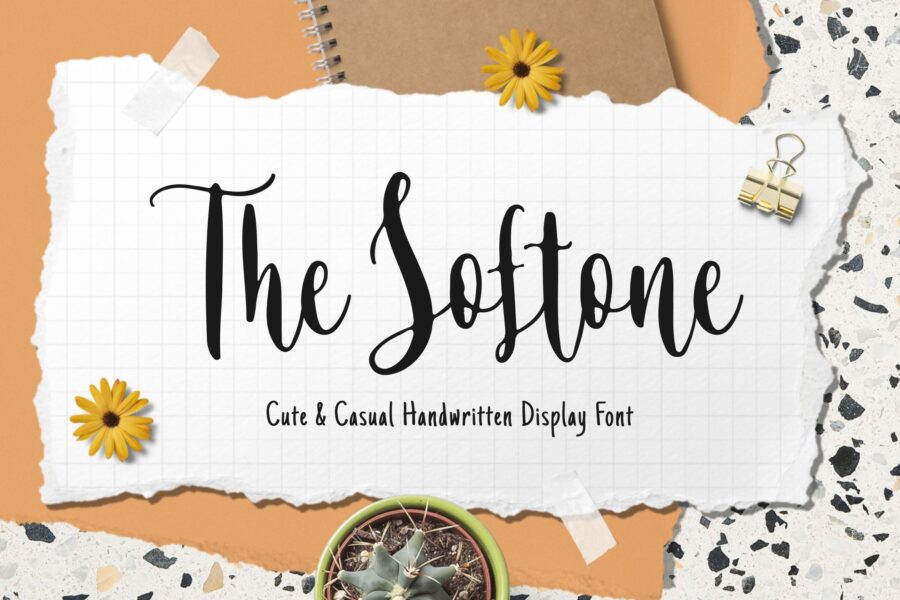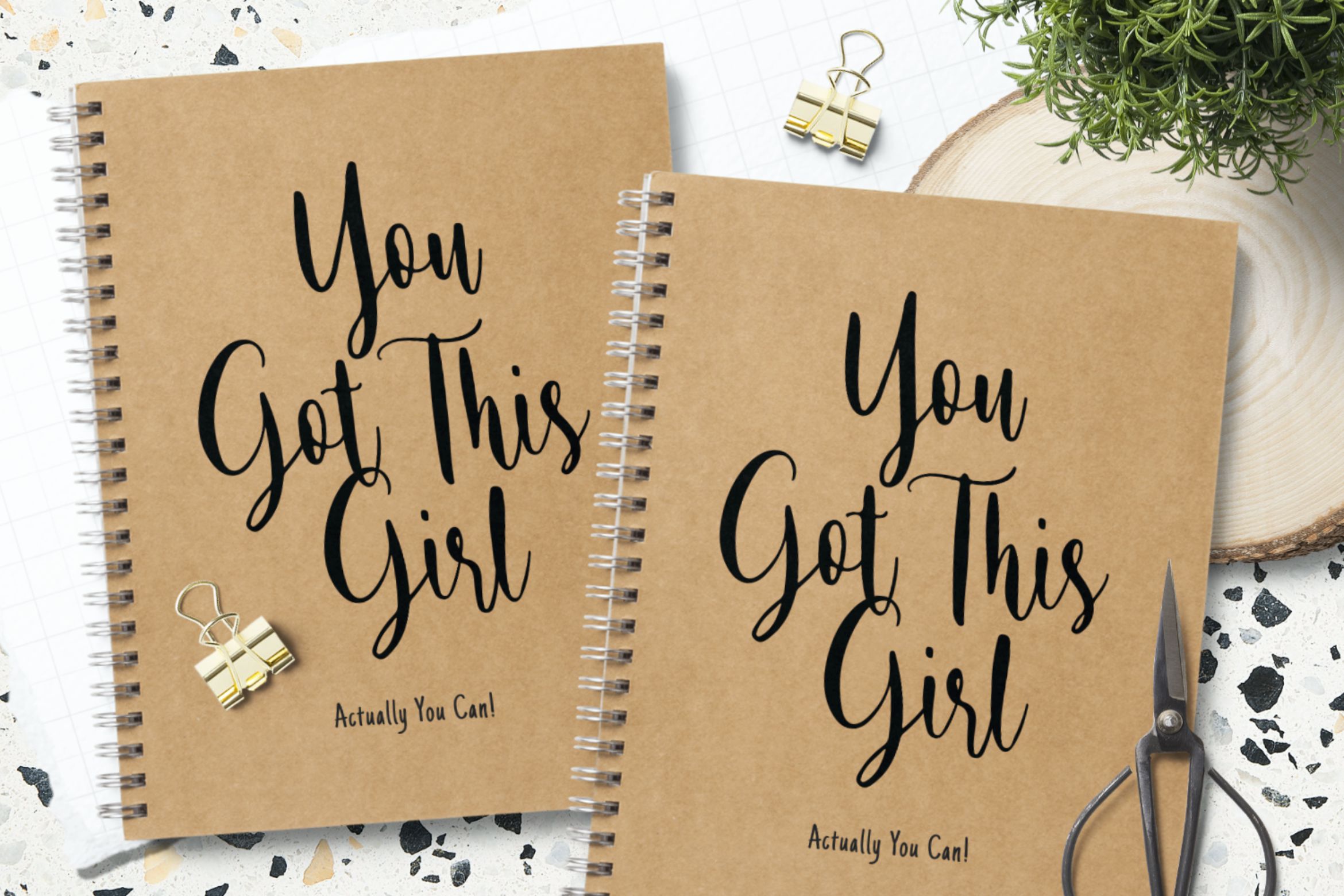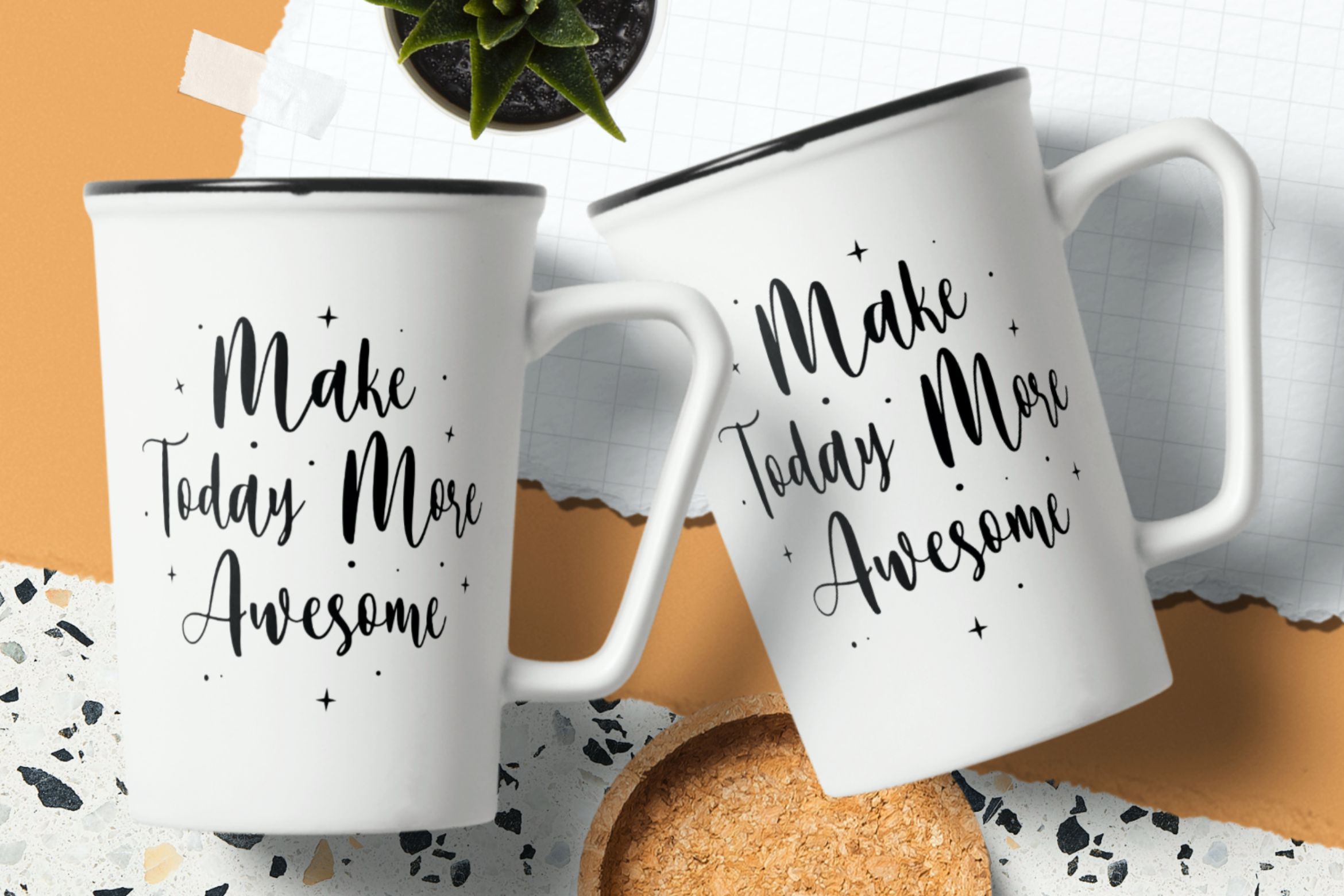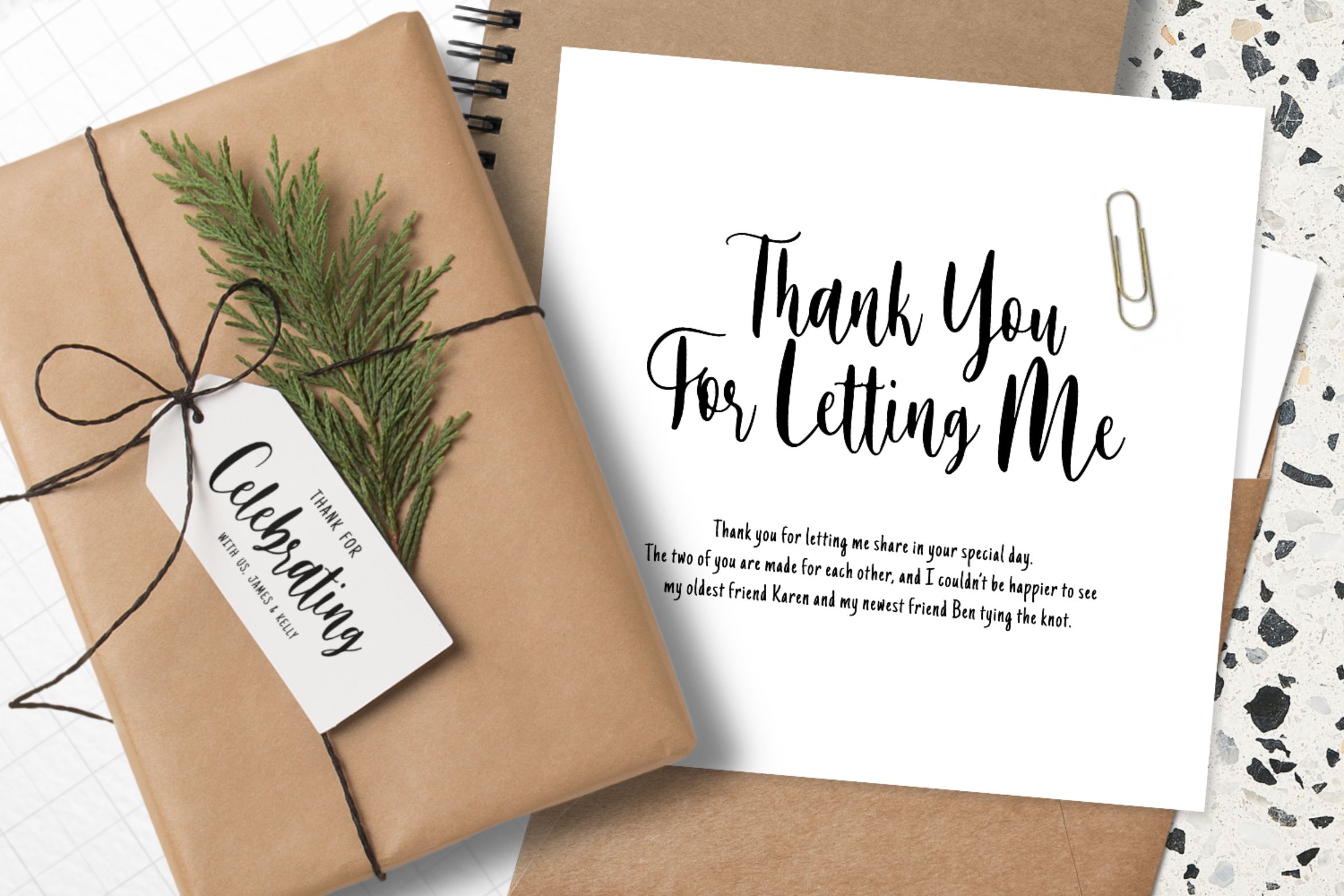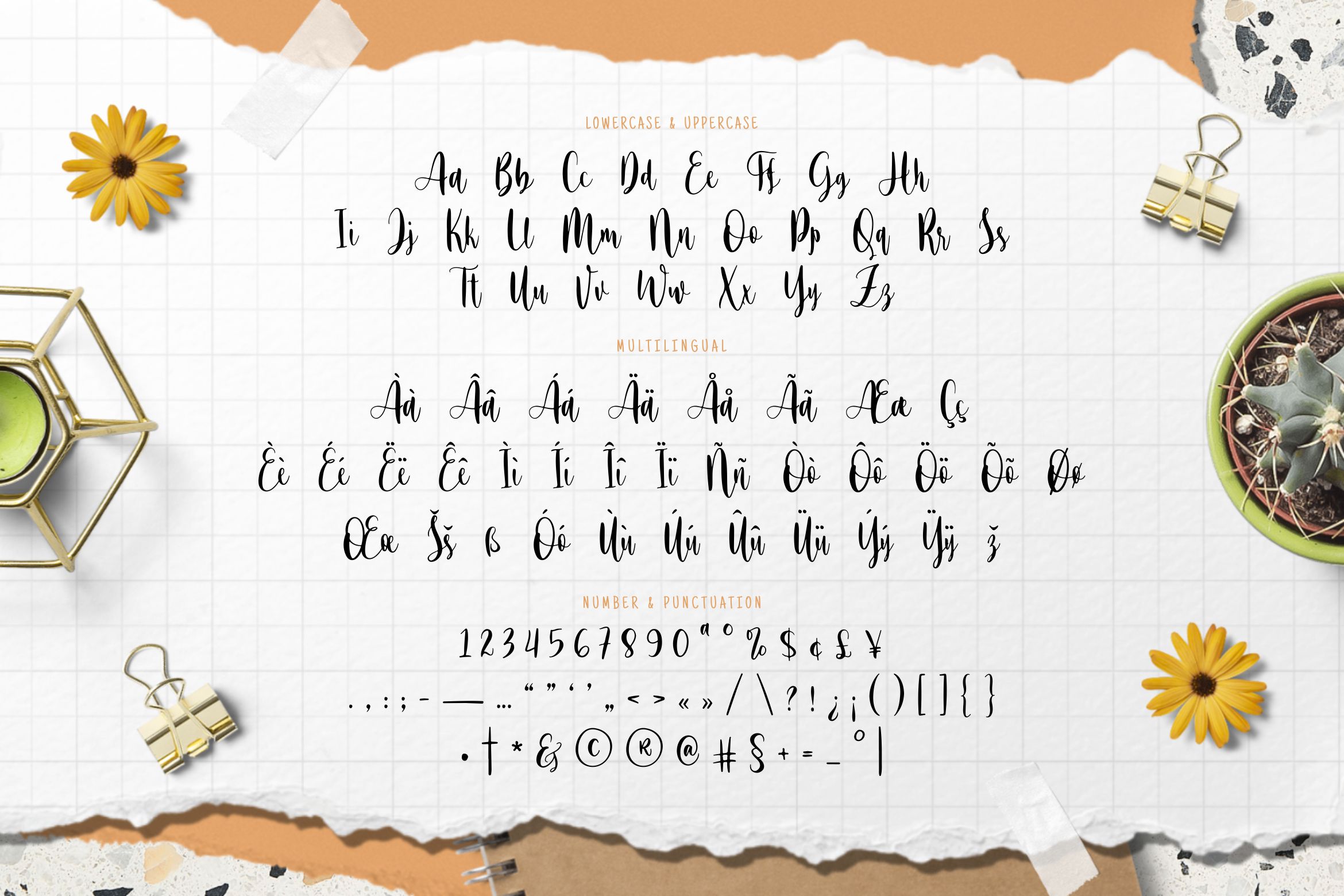
Softone
The Softone is a cute and casual handwritten display font that blends warmth and elegance in every stroke. With its flowing script style and smooth curves, it adds a personal, feminine touch to your design. Perfect for greeting cards, logos, wedding invitations, quotes, packaging, and planner covers, The Softone brings character and charm to every word it decorates.
Equipped with full multilingual support, punctuation, and numerals, this font is not only visually appealing but also highly functional. Whether you’re designing for a modern stationery line or heartfelt branding project, The Softone offers a friendly and approachable vibe that feels both trendy and timeless.